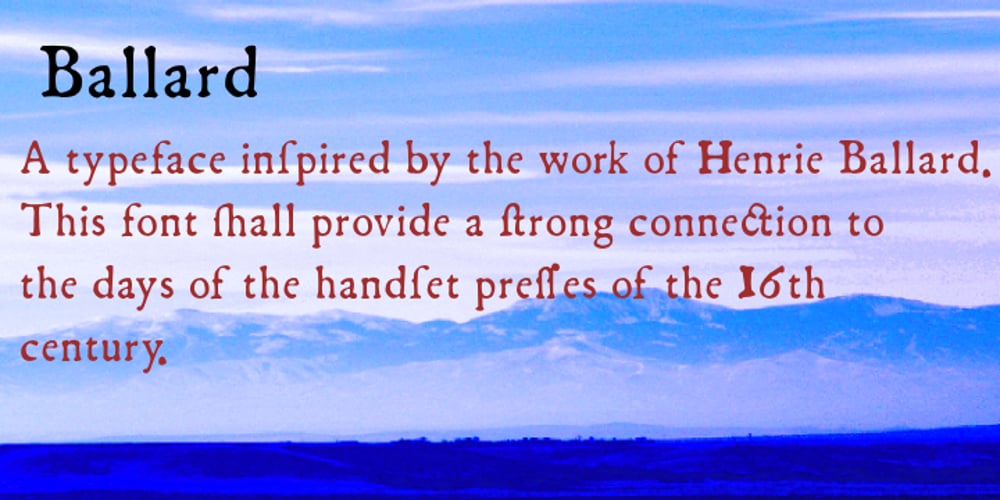
Ballard Font Family was designed by Shane Brandes and published by Proportional Lime. Ballard contains 5 styles and family package options. This typeface was inspired by a font used by Henrie Ballard. Ballard operated on Fleet Street at the Signe of the Bear in London, England. He was active in the industry from 1597-1608. The font is meant to capture the feel of the original typeface with the capability of reproducing the many ligatures that are part of what make that era’s printing interesting. The Italic version has a dramatic feel that is almost handwritten in appearance. Every Proportional Lime font comes with a complete guide to its Unicode extended character set.